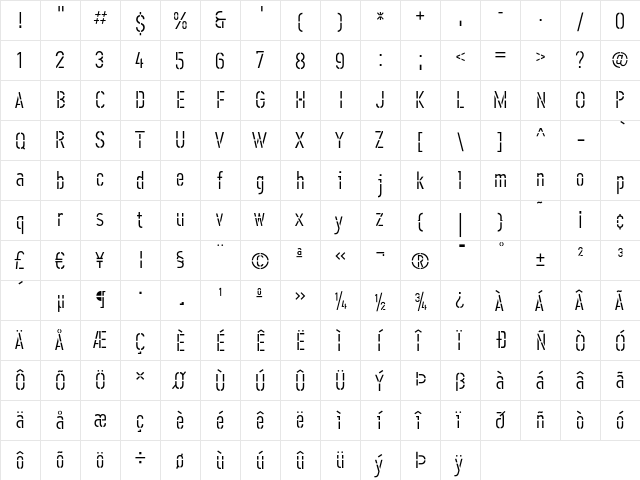
Offline-Light Regular
Design Context for Offline-Light Typeface
Offline-Light is a composed and adaptable typeface that performs quietly and consistently across a wide range of design contexts. Its slender proportions lend an understated elegance to any composition.
Pro Tip: Use Offline-Light in both headline and body roles to test its range before committing to a single application.